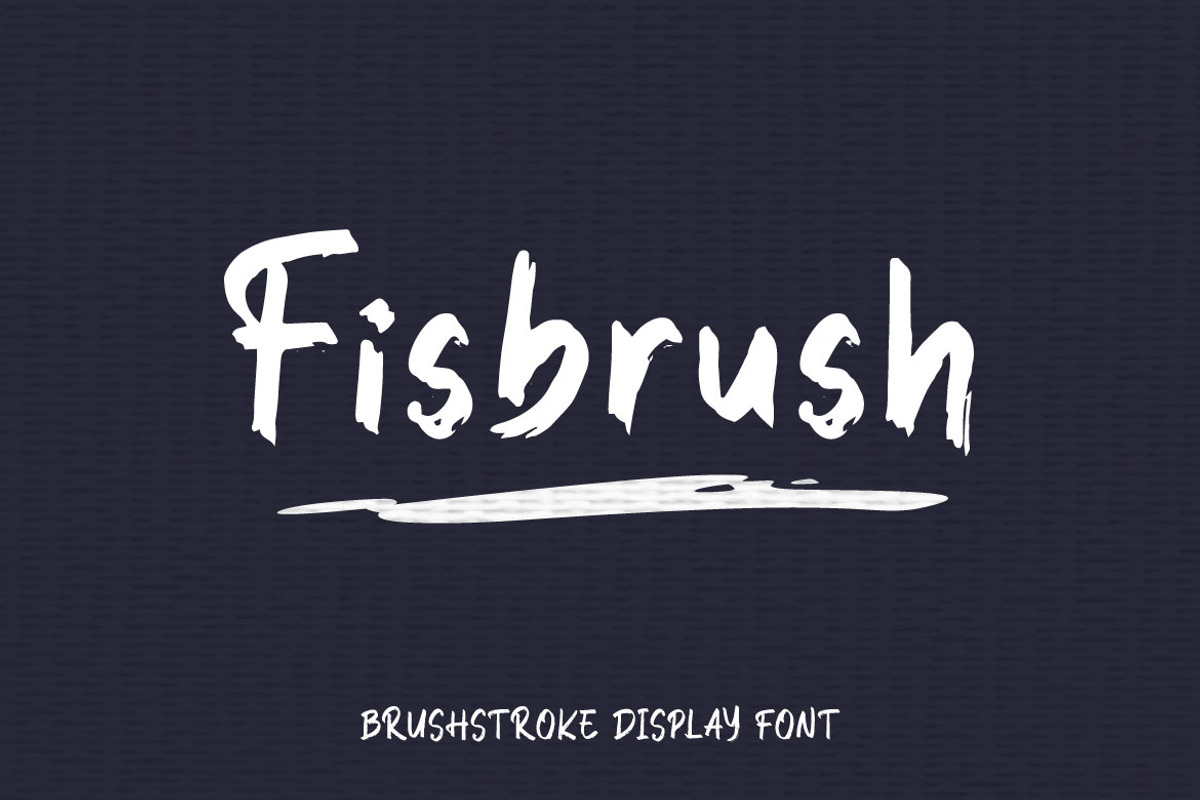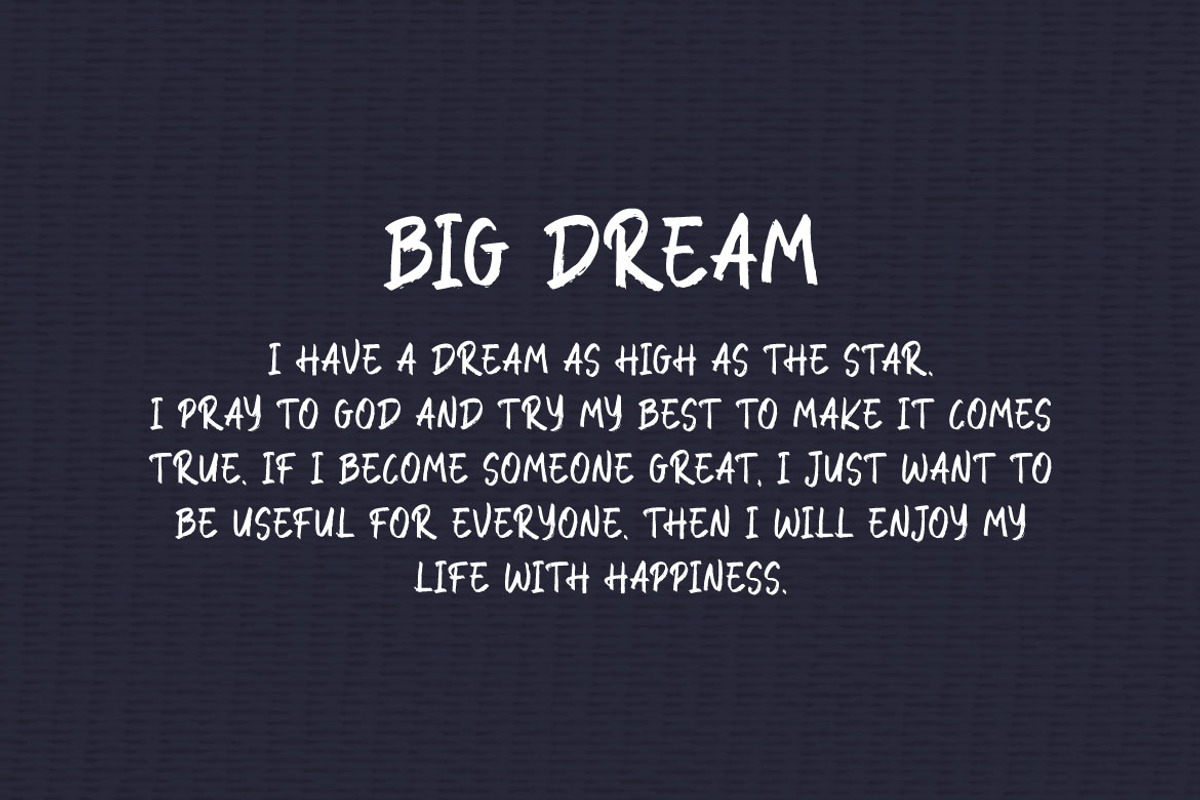
Fisbrush - Brushstroke Display Font
Hello! FISBRUSH is a modern futuristic font with a brush style. Fisbrush can be used in any works such as flyer, book title, advertisement, social media content, logo and many more.